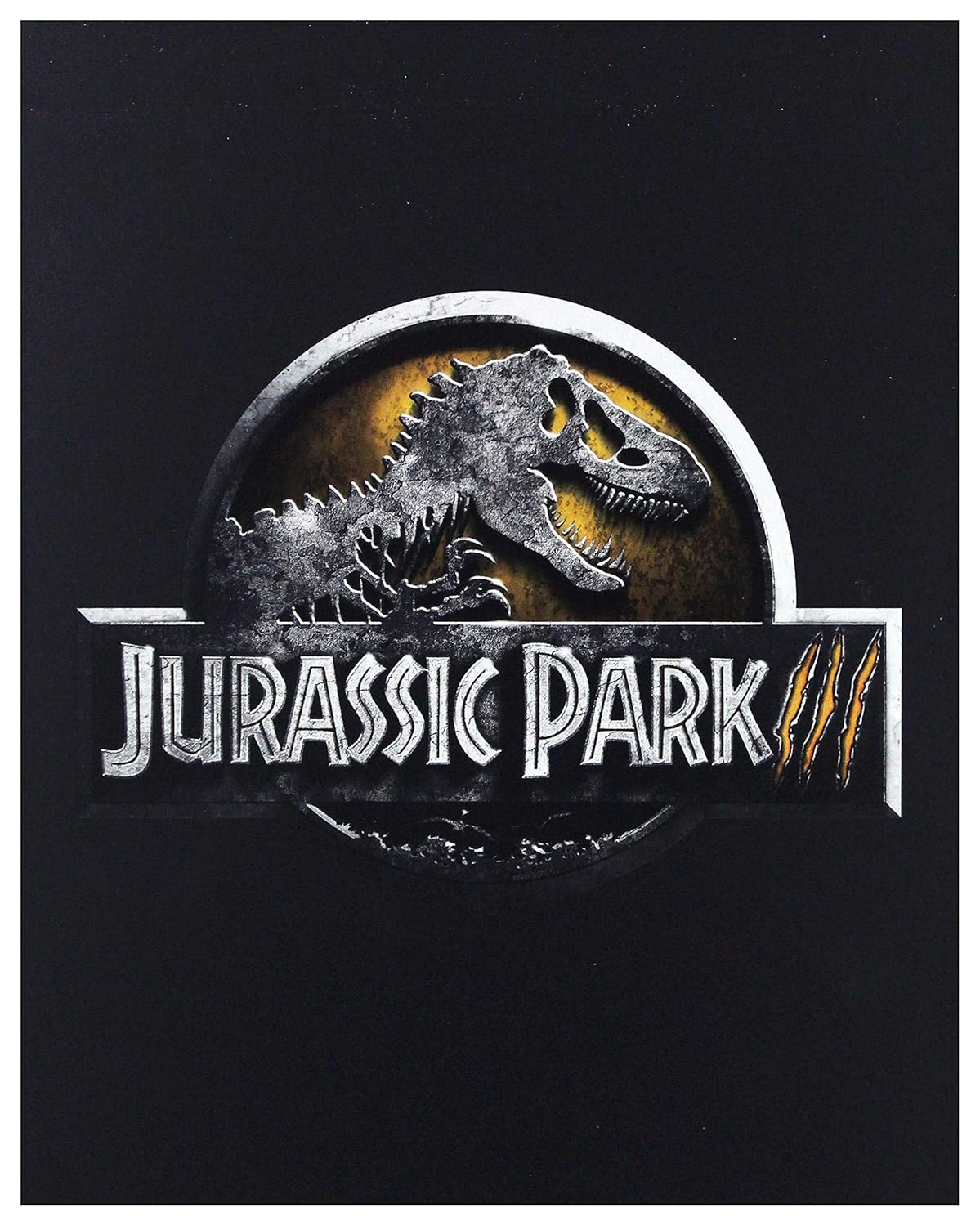
Jurassic park font free. This is a handy font;. Jurassic Park free Font What Font Is Download Jurassic Park font Jurassic Park by by Jens R Ziehn. This font is tagged Jens R Ziehn, Jurassic Park.
Looking for Dinosaurs fonts?. Free PC TTF Movie, Hollow This font resembles the lettering used for the Jurassic Park movie. Jurassic Park by Jens R Ziehn A font based on the title logo from the movie Jurassic Park 3 and Jurassic World CLICK HERE TO DOWNLOAD!.
Free download of Jurassic Park Font Released in 04 by Filmfonts and licensed for personaluse only. Download the Jurassic Park font by Film Himmel Jens R Ziehn The Jurassic Park font has been downloaded 506,390 times. Jurassic Park font By Film Himmel Jens R Ziehn Website wwwfilmhimmelcom 2696 views, 440 downloads Share Share Share Download (zip 257 Kb) Add to favourites Report this font.
Download the free font replicating the title logo from the movie Jurassic Park and many more at the ORIGINAL Famous Fonts!. Jurassic Park is a 1993 American science fiction adventure film directed by Steven Spielberg and produced by Kathleen Kennedy and Gerald R Molen It is the first installment in the Jurassic Park franchise, and is based on the 1990 novel of the same name by Michael Crichton and a screenplay written by Crichton and David Koepp The film is set on the fictional island of Isla Nublar, located off. Download Troglodyte NF Font · Free for commercial use · This fine fat face is based on a font called Advertisement Grotesque, discovered in a 1942 book entitled Lettering Alphabets for Draughtsmen, Advertis.
Jurassic Park font By Film Himmel Jens R Ziehn Website wwwfilmhimmelcom 2696 views, 440 downloads Share Share Share Download (zip 257 Kb) Add to favourites Report this font. Free for personal use 4 font files Download Donate to author Blade Singer à € by Iconian Fonts. Price Free Jurassic Park Font is presented by Filmfonts This awesome font only is allowed for personal use unless you get a commercial license I recommend you to check out this font for African theme designs!.